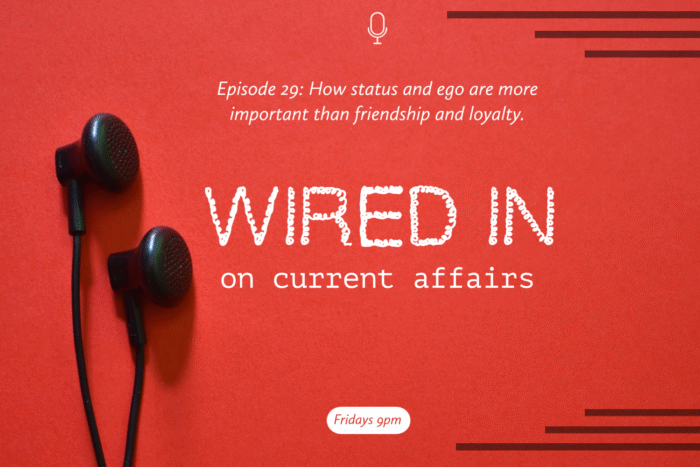
Littlelucky fonts are now here! Presenting first on my list is barb wire a perfect font for you funny party, cards and anything you like. This font is specially for the kids parties This typeface is composed of original, funky letterforms that take on a second life